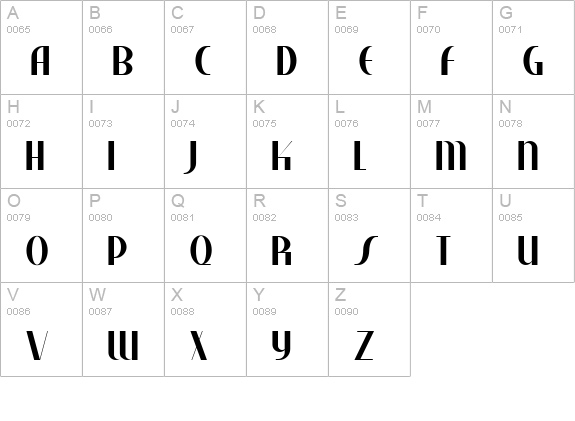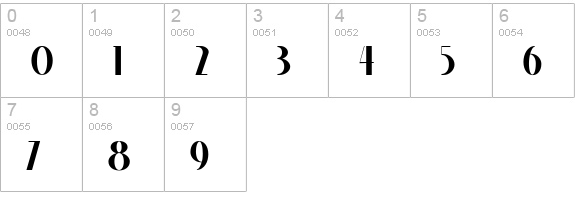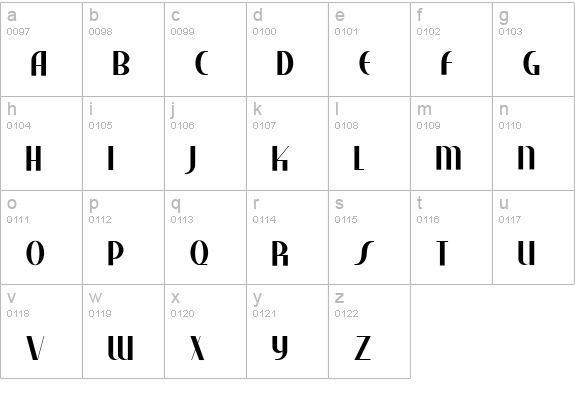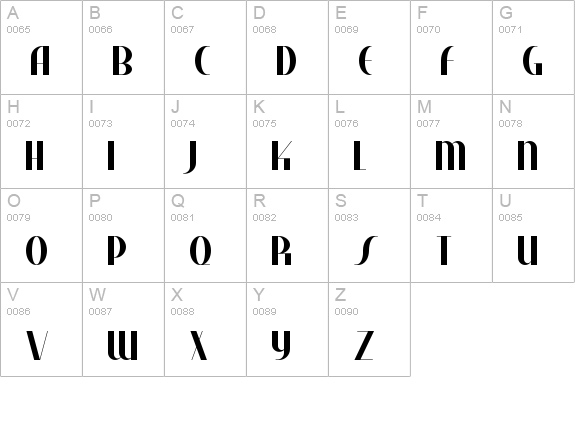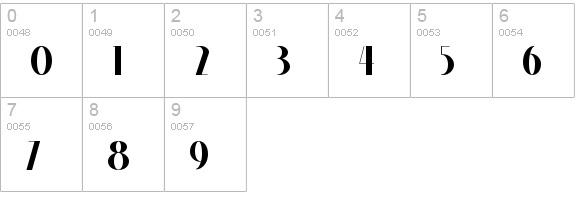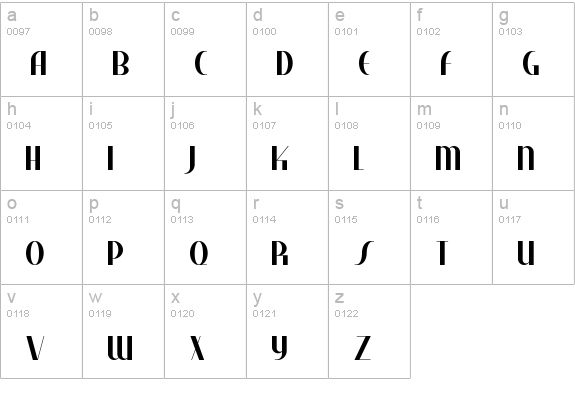
Studebaker NF Font Details
Studebaker NF font captures the essence of vintage charm and timeless elegance, making it a perfect choice for projects seeking a touch of nostalgia. Its classic letterforms exude sophistication and refinement, while its subtle quirks add a unique character to any design. This versatile typeface is suitable for a wide range of applications, from branding and packaging to editorial and signage. What sets Studebaker NF font apart is not only its impeccable craftsmanship but also its accessibility - it is available for free download at FontsMarket.com. This means that you can effortlessly incorporate this beautiful font into your creative endeavors without any cost or hassle. So why wait? Embrace the beauty of Studebaker NF font and elevate your designs with its timeless appeal today.